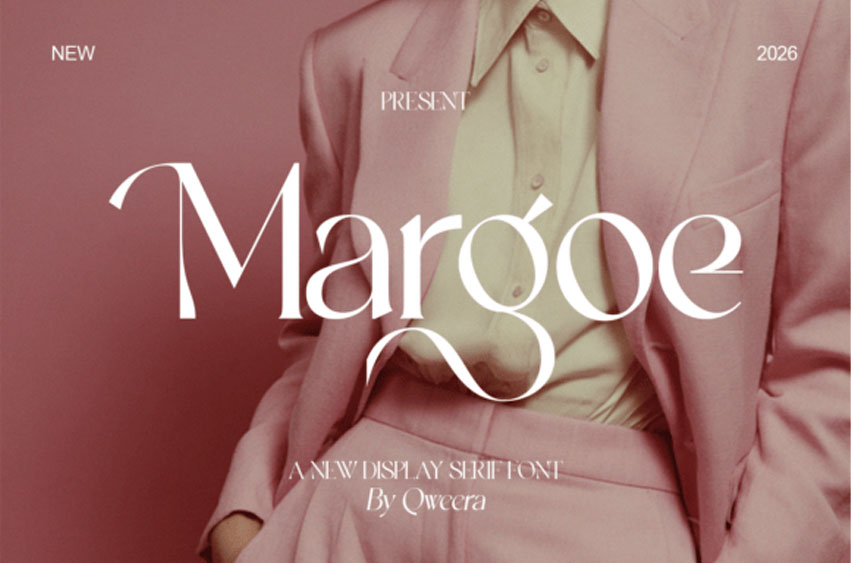
Margoe Font
Margoe Font is a stylish elegant serif typeface created for luxury branding and feminine visual identity. Its graceful curves, premium structure, and refined details make it perfect for logos, editorials, invitations, packaging, and beauty brands.
This serif font blends timeless elegance with modern softness for high-end creative projects. Perfect for designers seeking premium feminine typography.